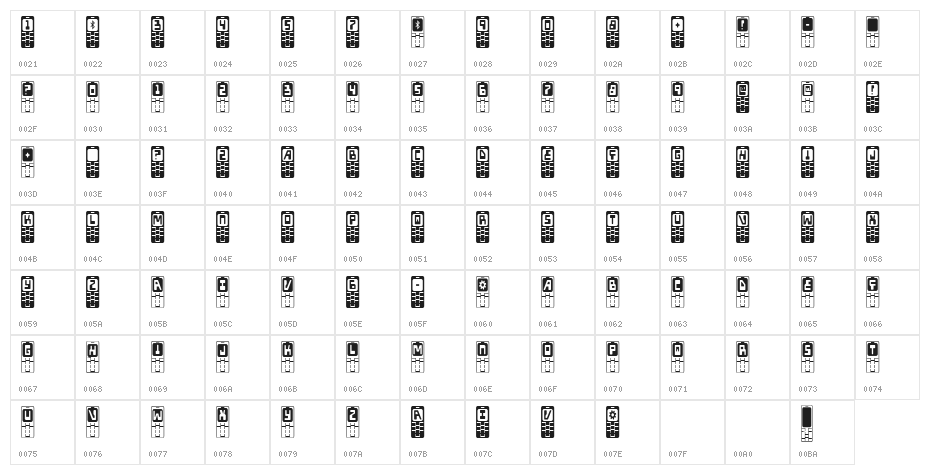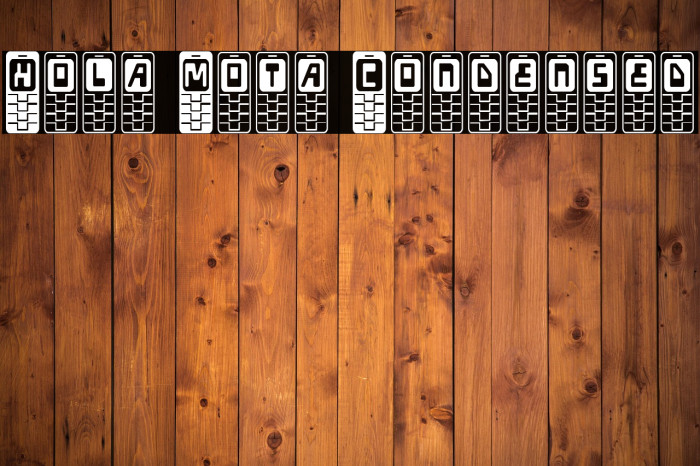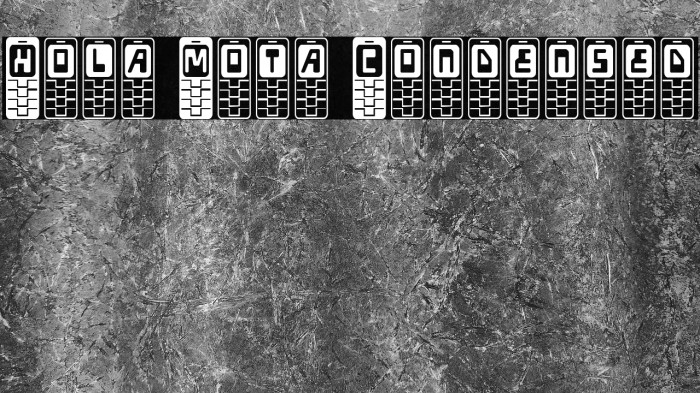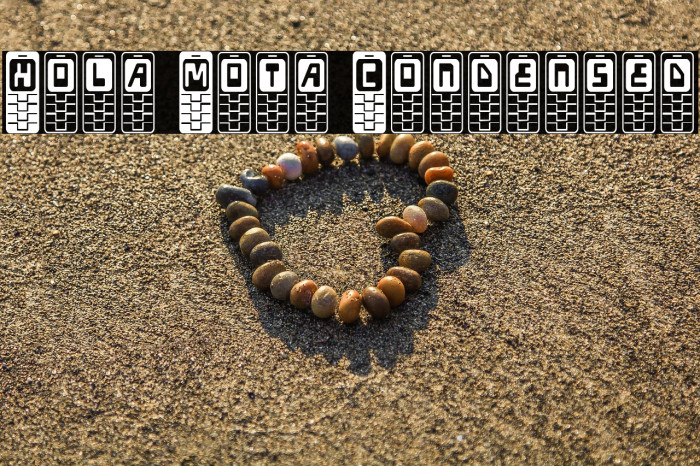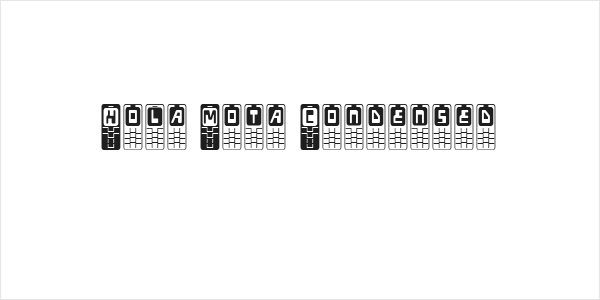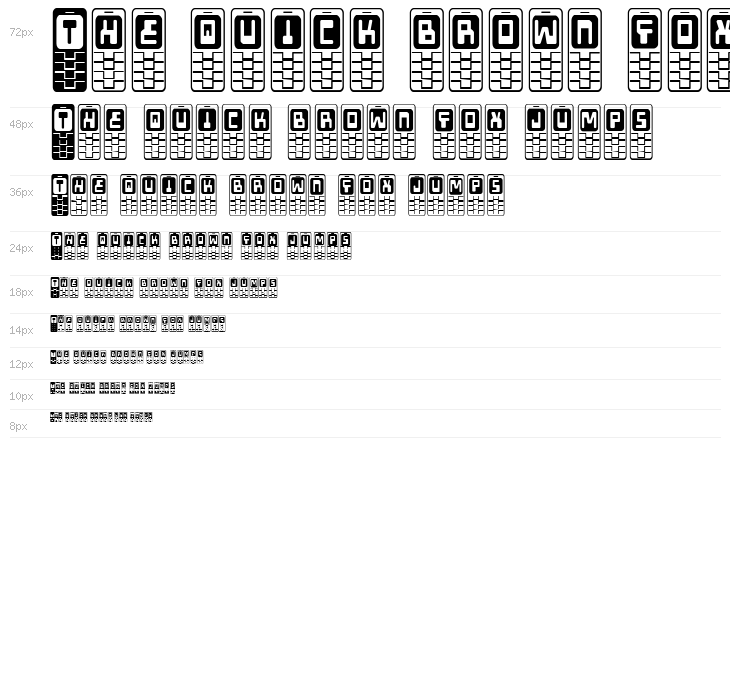
Hola Mota Condensed Font
Hola Mota Condensed Description
This font features a bold, geometric design with a distinct blocky appearance. Each character is enclosed within a rectangular frame, giving it a unique, structured look. The letters and numbers are designed with thick strokes and minimal contrast, emphasizing a modern and futuristic aesthetic. The font's condensed nature allows for efficient use of space, making it suitable for headlines or titles where impact is essential. The overall style is decorative, with a digital or tech-inspired feel, making it ideal for projects that require a strong visual statement.
| Overall Style | Modern, Futuristic |
| Proposed Projects | Ideal for tech-related branding, futuristic posters, digital interfaces, and video game graphics. |